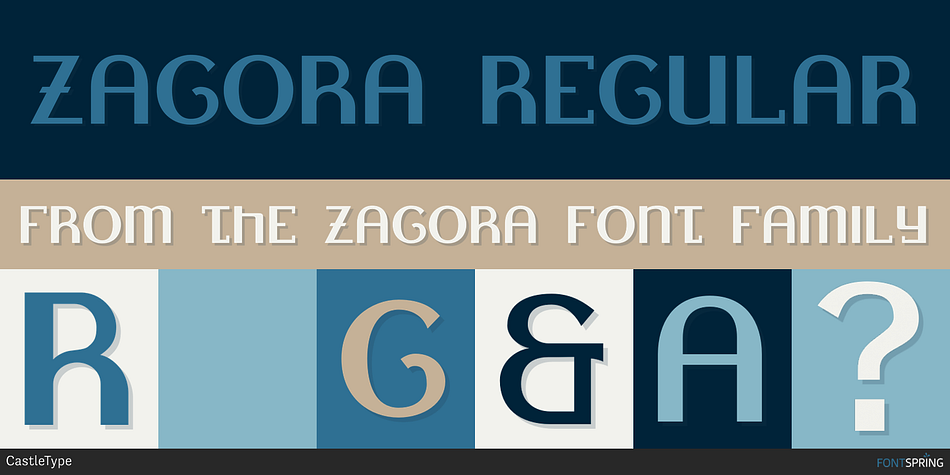
ZAGORA REGULAR
Zagora is a display font published by CastleType.
For whatever reason, while working on this font, I was reminded of Morocco and that wonderful little town.
ZagoraTM, based on an art deco design (original typeface name and designer unknown), is named for a small Moroccan town on the border of the Sahara desert, where a billboard at the edge of a great expanse of sand points the way to Timbuktu (52 days by camel). For whatever reason, while working on this font, I was reminded of Morocco and that wonderful little town.